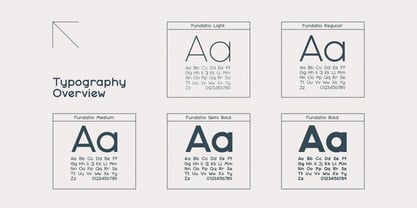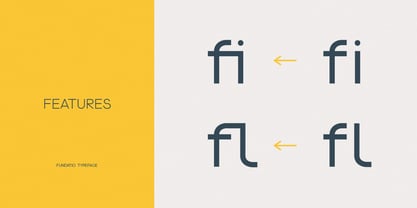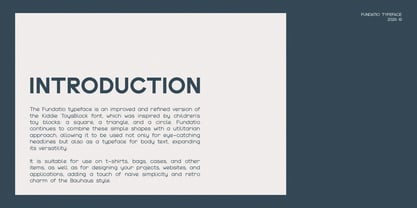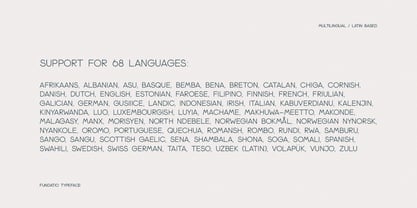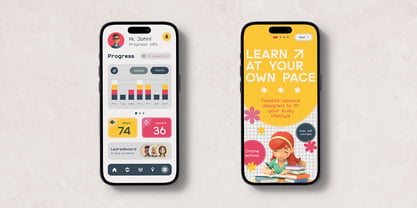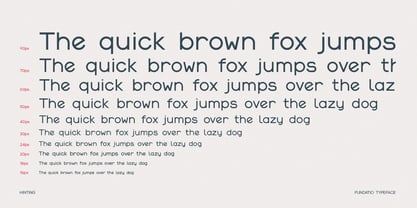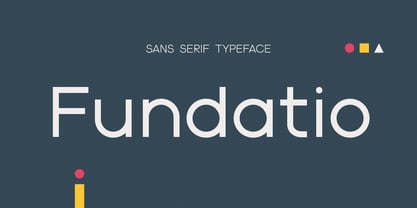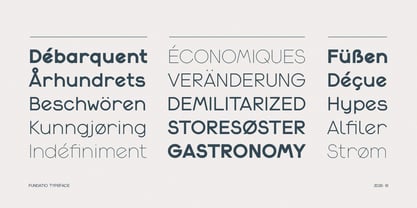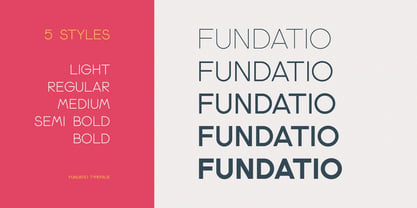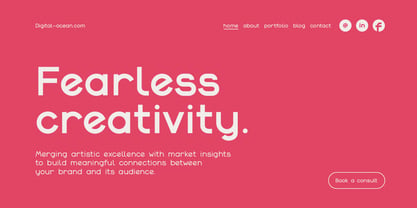
Fundatio
by Fidan Fonts
The Fundatio typeface is an improved and refined version of the Kiddie ToysBlock font, which was inspired by children's toy blocks: a square, a triangle, and a circle.
Fundatio continues to combine these simple shapes with a utilitarian approach, allowing it to be used not only for eye-catching headlines but also as a typeface for body text, expanding its versatility.
It is suitable for use on t-shirts, bags, cases, and other items, as well as for designing your projects, websites, and applications, adding a touch of naive simplicity and retro charm of the Bauhaus style.
The font family includes five styles: Light, Regular, Medium, Semi Bold, and Bold.
Sans-serif/235 characters.
Support for 68 languages:
Afrikaans, Albanian, Asu, Basque, Bemba, Bena, Breton, Catalan, Chiga, Cornish, Danish, Dutch, English, Estonian, Faroese, Filipino, Finnish, French, Friulian, Galician, German, GusiiIce, landic, Indonesian, Irish, Italian, Kabuverdianu, Kalenjin, Kinyarwanda, Luo, Luxembourgish, Luyia, Machame, Makhuwa-Meetto, Makonde, Malagasy, Manx, Morisyen, North Ndebele, Norwegian Bokmål, Norwegian Nynorsk, Nyankole, Oromo, Portuguese, Quechua, Romansh, Rombo, Rundi, Rwa, Samburu, Sango, Sangu, Scottish Gaelic, Sena, Shambala, Shona, Soga, Somali, Spanish, Swahili, Swedish, Swiss German, Taita, Teso, Uzbek (Latin), Volapük, Vunjo, Zulu